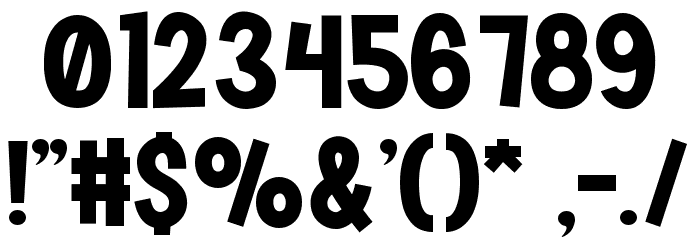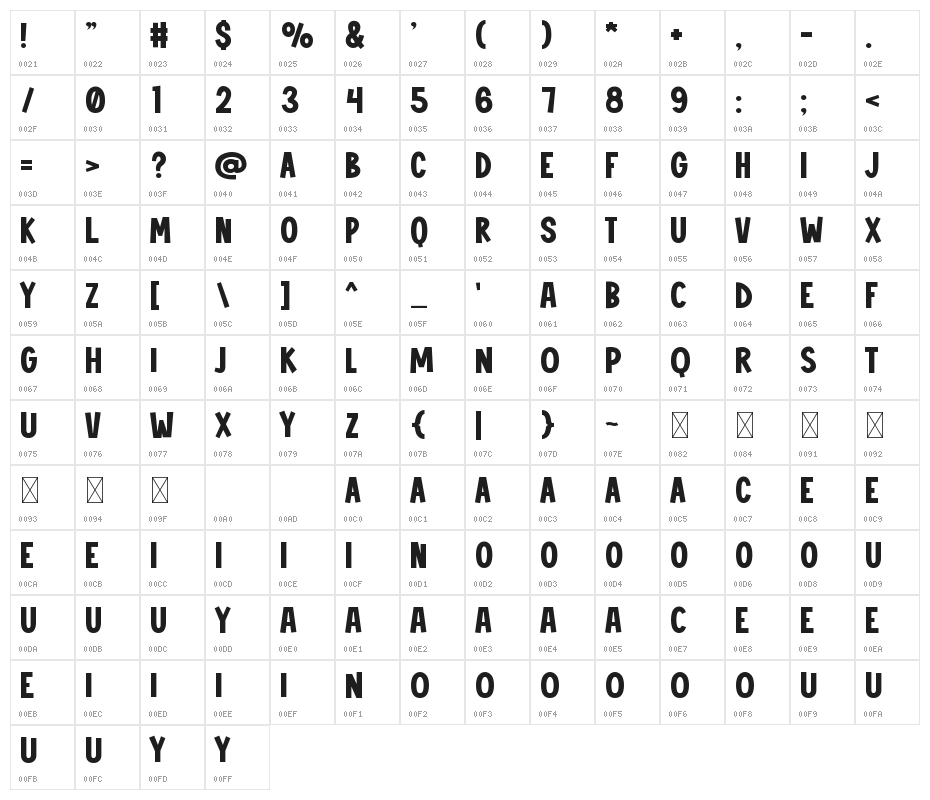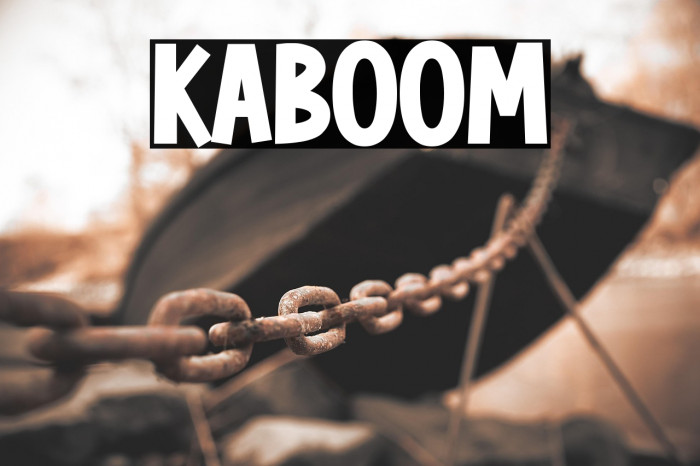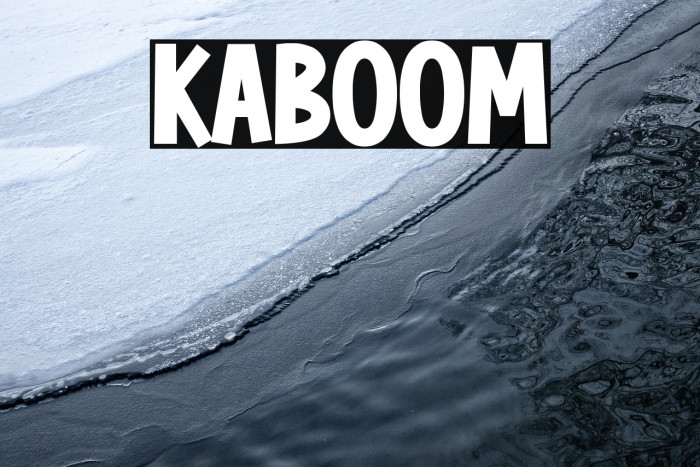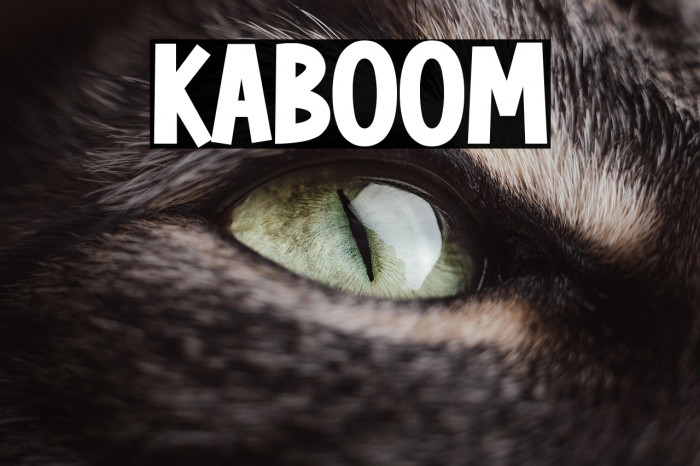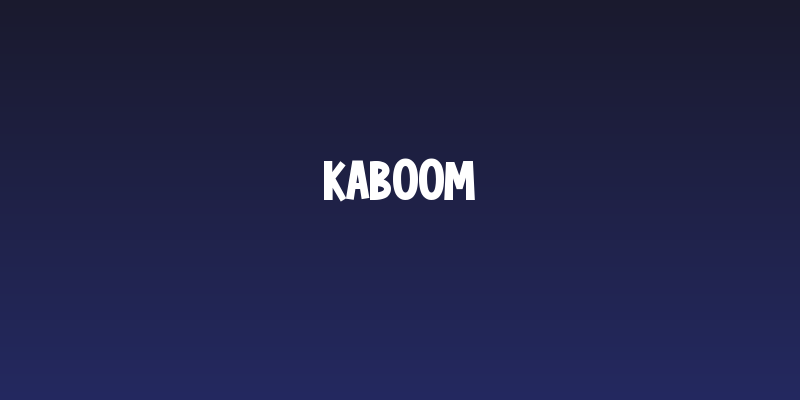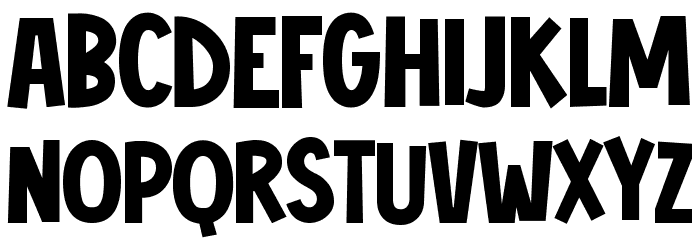
KABOOM Font
KABOOM Description
This bold, decorative font features thick, uniform strokes with a playful and energetic style. The characters are tightly spaced, creating a compact and impactful appearance. The uppercase letters are particularly striking, with a slight slant that adds a dynamic feel. The numbers and special characters maintain the same boldness, ensuring consistency across all elements. This font is perfect for making a statement, with its high contrast and attention-grabbing design.
| Overall Style | Playful, Energetic |
| Proposed Projects | Ideal for posters, comic book titles, children's book covers, and any project needing a fun, bold statement. |